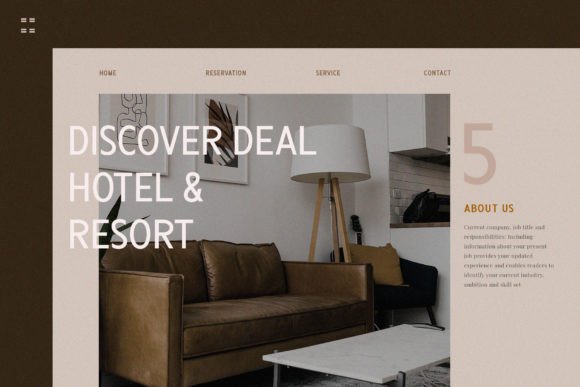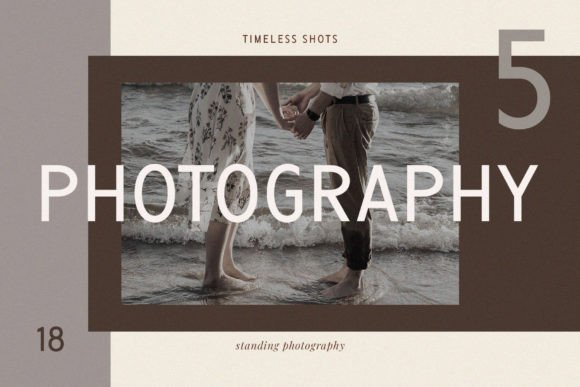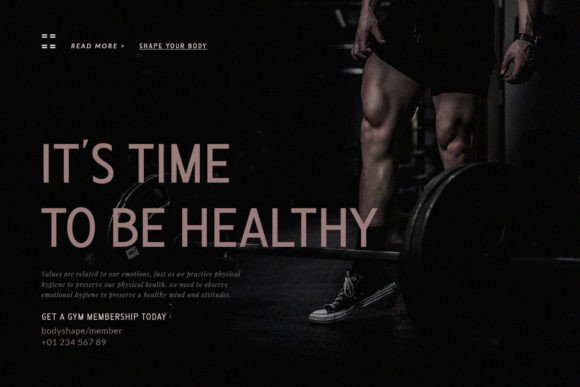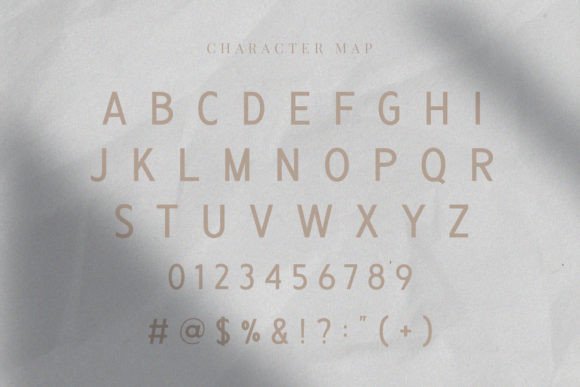
Introduction to Cossines Font
Cossines is a classy and elegant sans serif font.
Incredibly versatile, this font is perfect for a wide range of design ideas Add it confidently to your projects and you will love the results.
Key Features of Cossines Font
Why Choose Cossines Font?
Cossines Font offers exceptional quality and versatility, making it a valuable addition to your design toolkit. Whether you’re creating for personal projects or commercial use, Cossines Font delivers professional results.